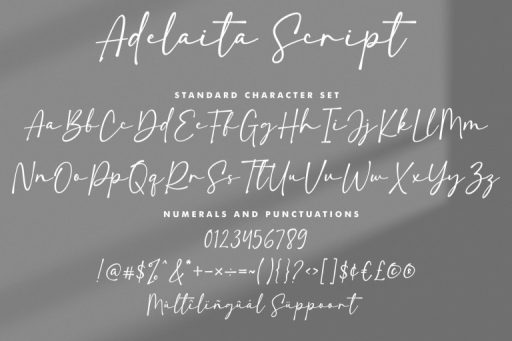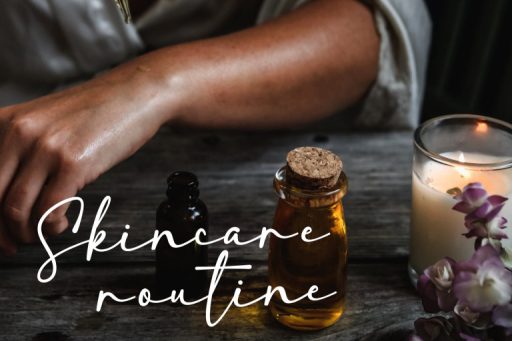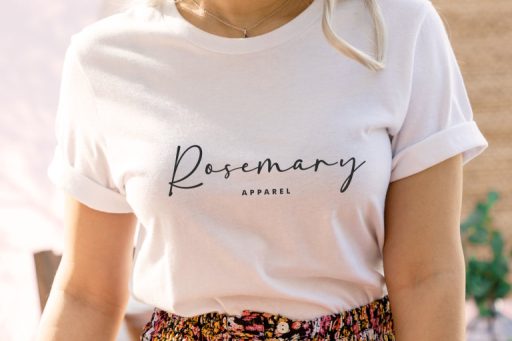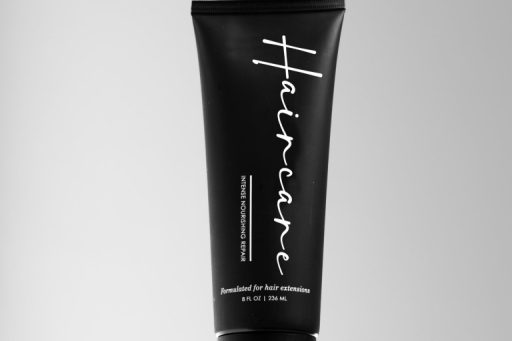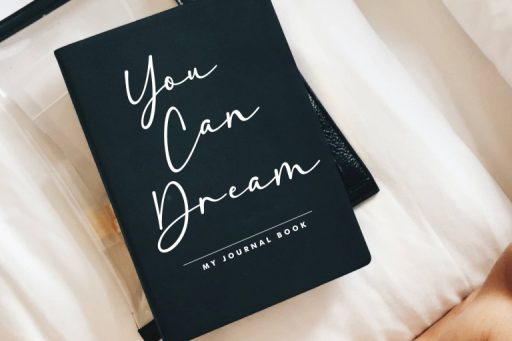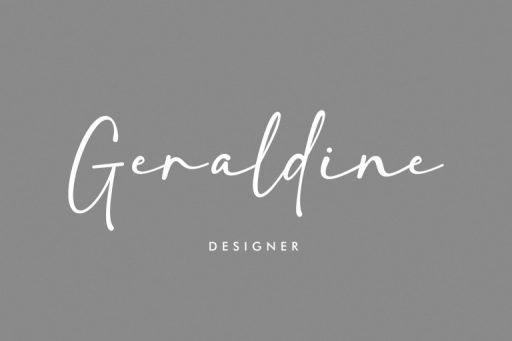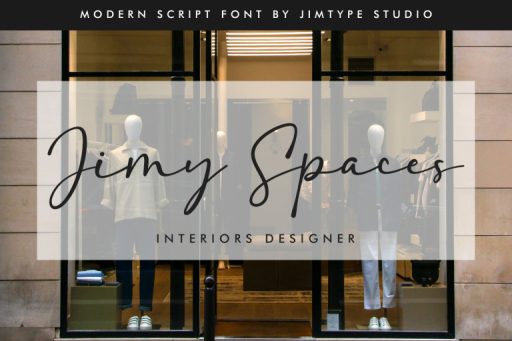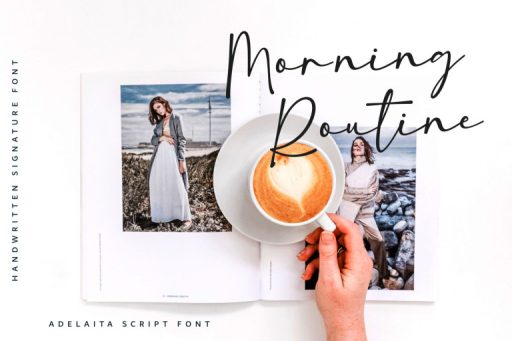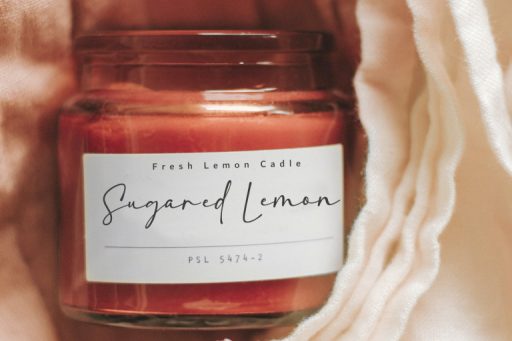
Adelaita Script - Cute Branding Font from Jimtype Studio
Adelaita Font
Adelaita Script – Cute Branding Font from Jimtype Studio
Introducing ‘Adelaita Font’ – where sophistication meets femininity in every curve and swirl! Elevate your creative projects with this exquisite feminine, handwriting script. ‘Adelaita Font’ adds a touch of grace and elegance to your designs, making it perfect for branding, invitations, and beyond. Explore the allure of ‘Adelaita’ in our shop and transform your creations into timeless works of art.
Adelaita Font